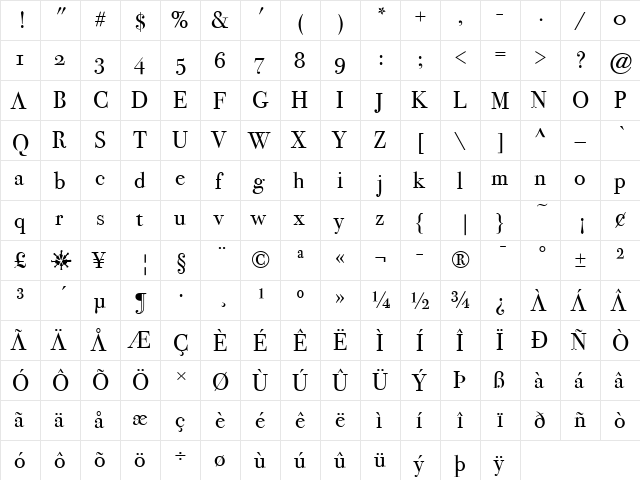
Bodoni Seventytwo ITC Book Font Preview
Bodoni Seventytwo ITC Book
Bodoni Seventytwo ITC Book Font Details
| Style | Book |
| Foundry | by URW |
Design Context for Bodoni Seventytwo ITC Typeface
Bodoni Seventytwo ITC offers clean, dependable letterforms without strong stylistic allegiance, making it a practical choice for designers who need flexibility.